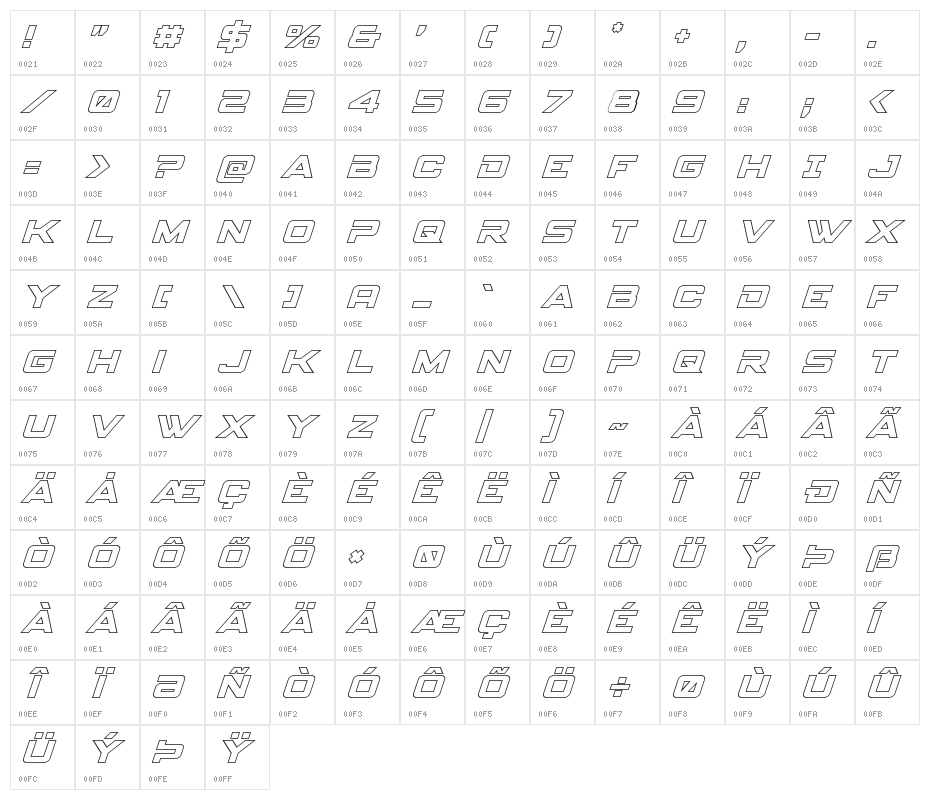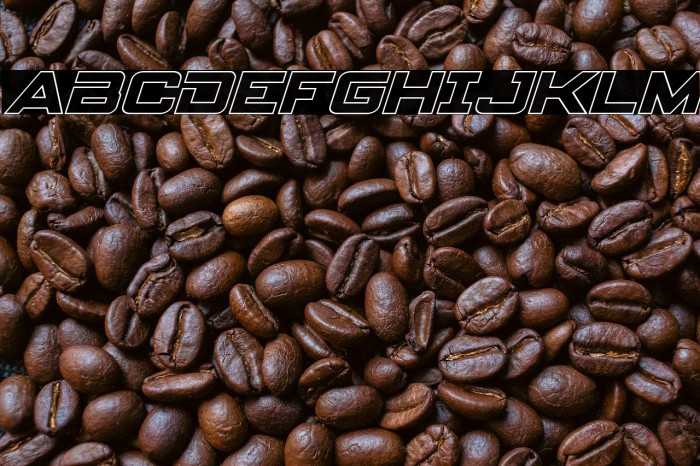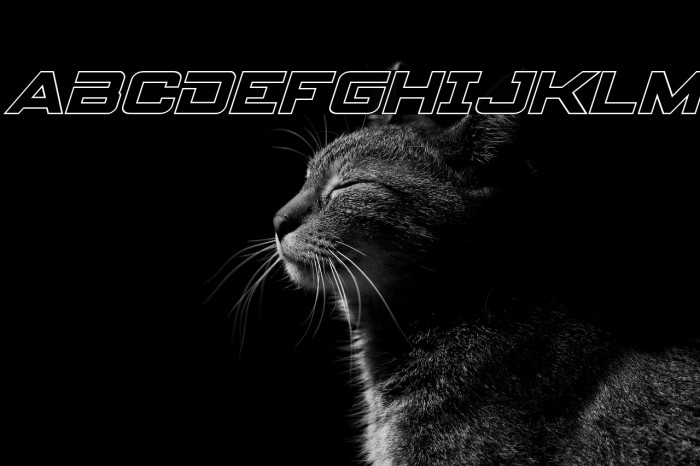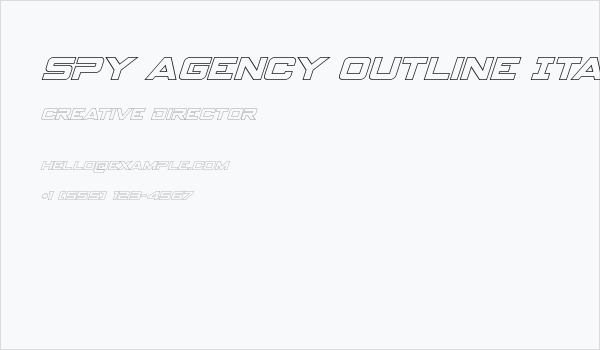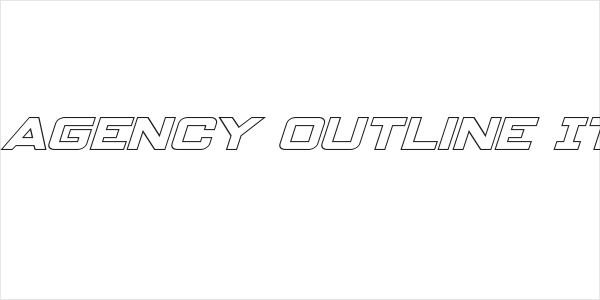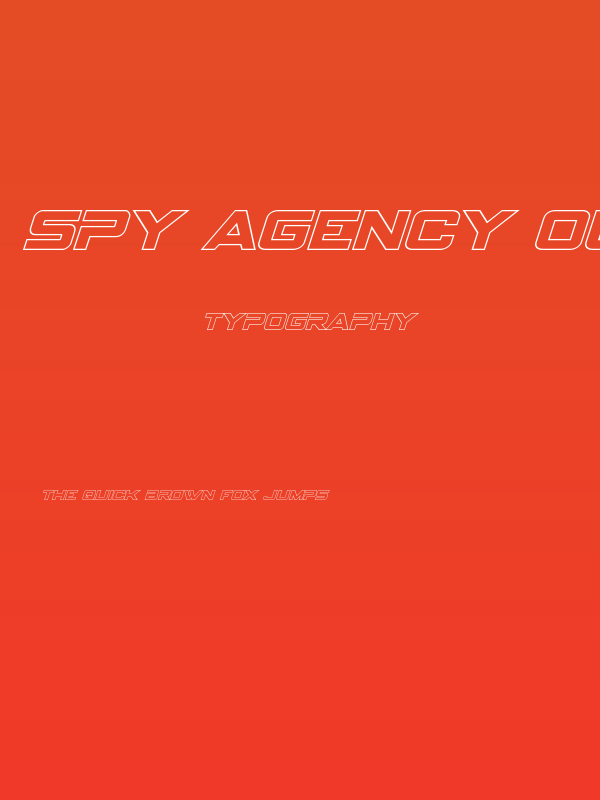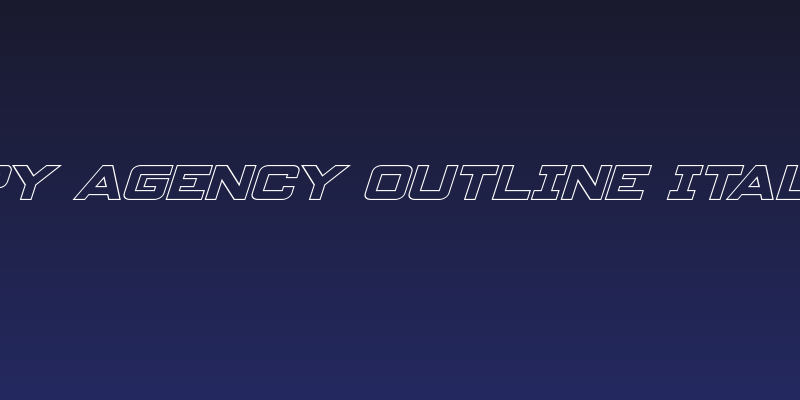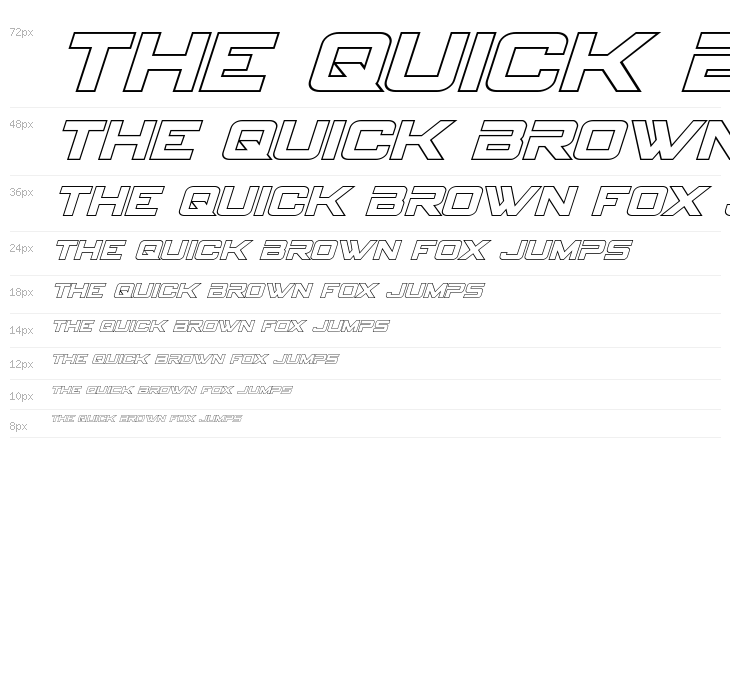
Spy Agency Outline Italic Font
Spy Agency Outline Italic Description
This font features a bold, italicized outline style that gives it a dynamic and modern appearance. The characters are designed with a strong geometric structure, emphasizing sharp angles and clean lines. The outline effect creates a sense of depth and dimension, making the letters stand out prominently. This style is particularly effective for creating eye-catching headlines or titles. The uppercase and lowercase letters maintain a consistent design, ensuring readability while adding a unique flair. The numerals and special characters are crafted with the same attention to detail, providing a cohesive look across all elements.